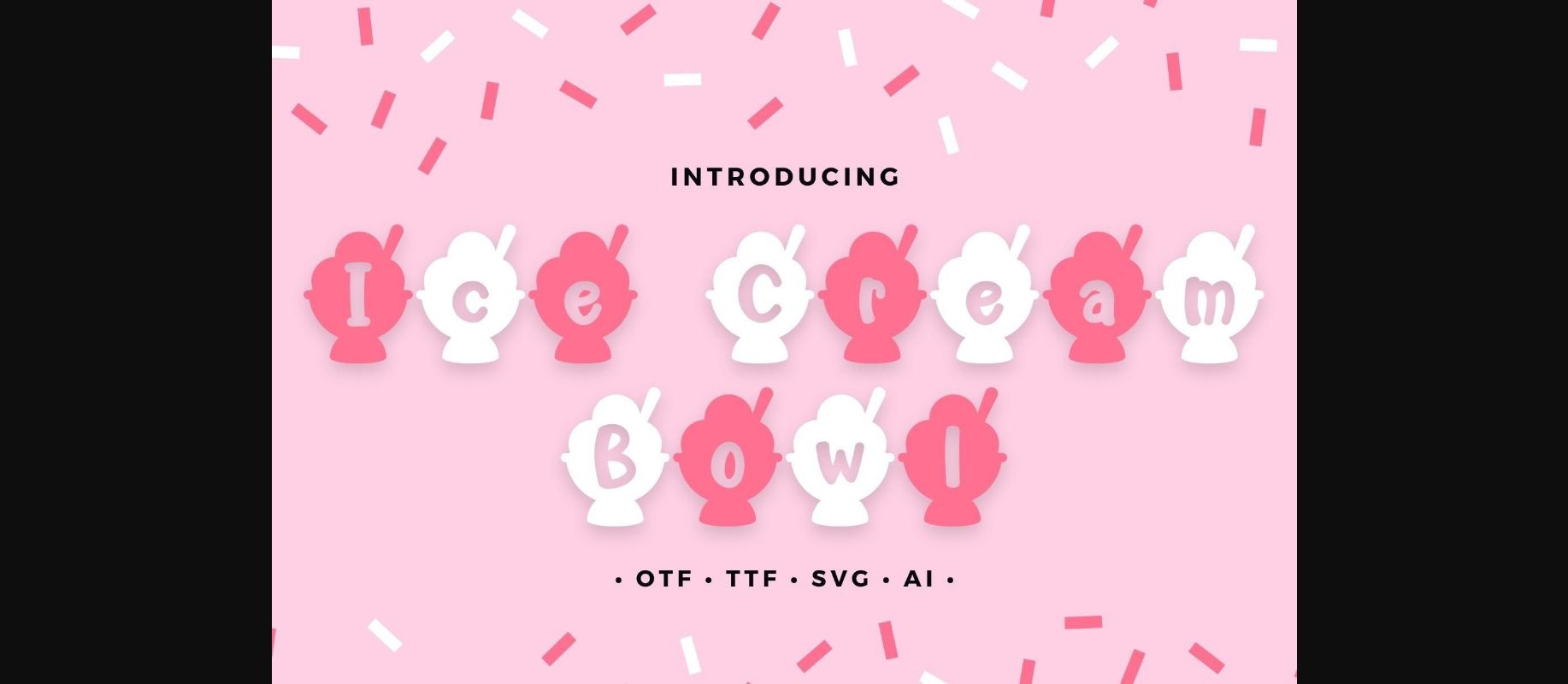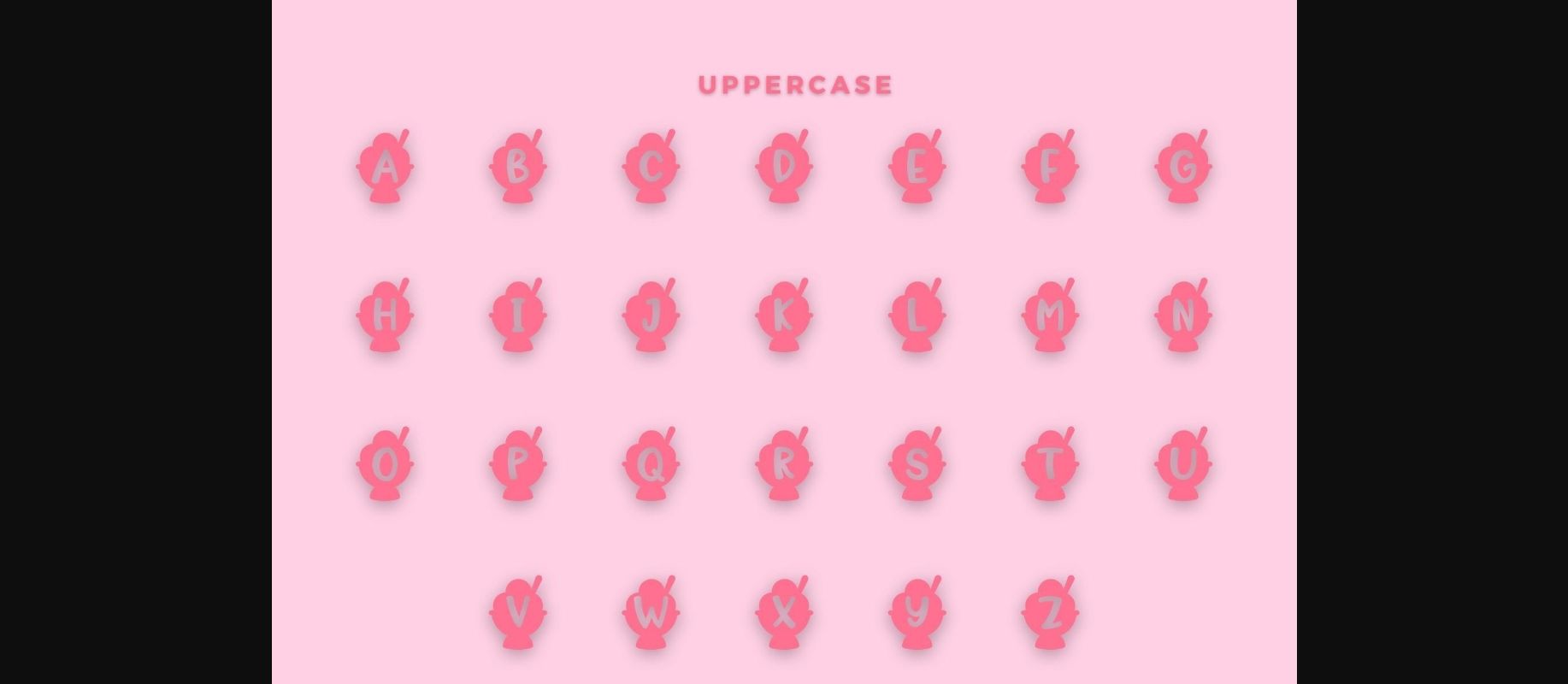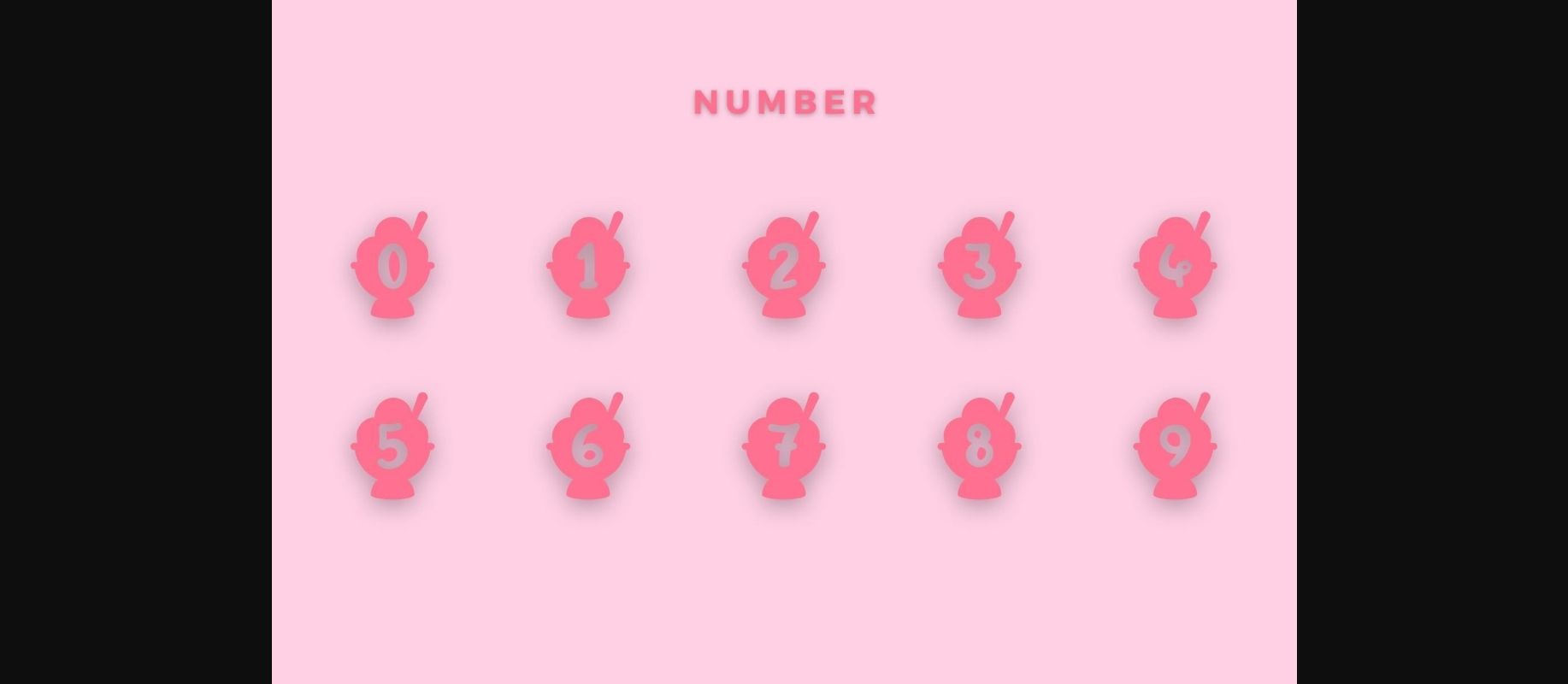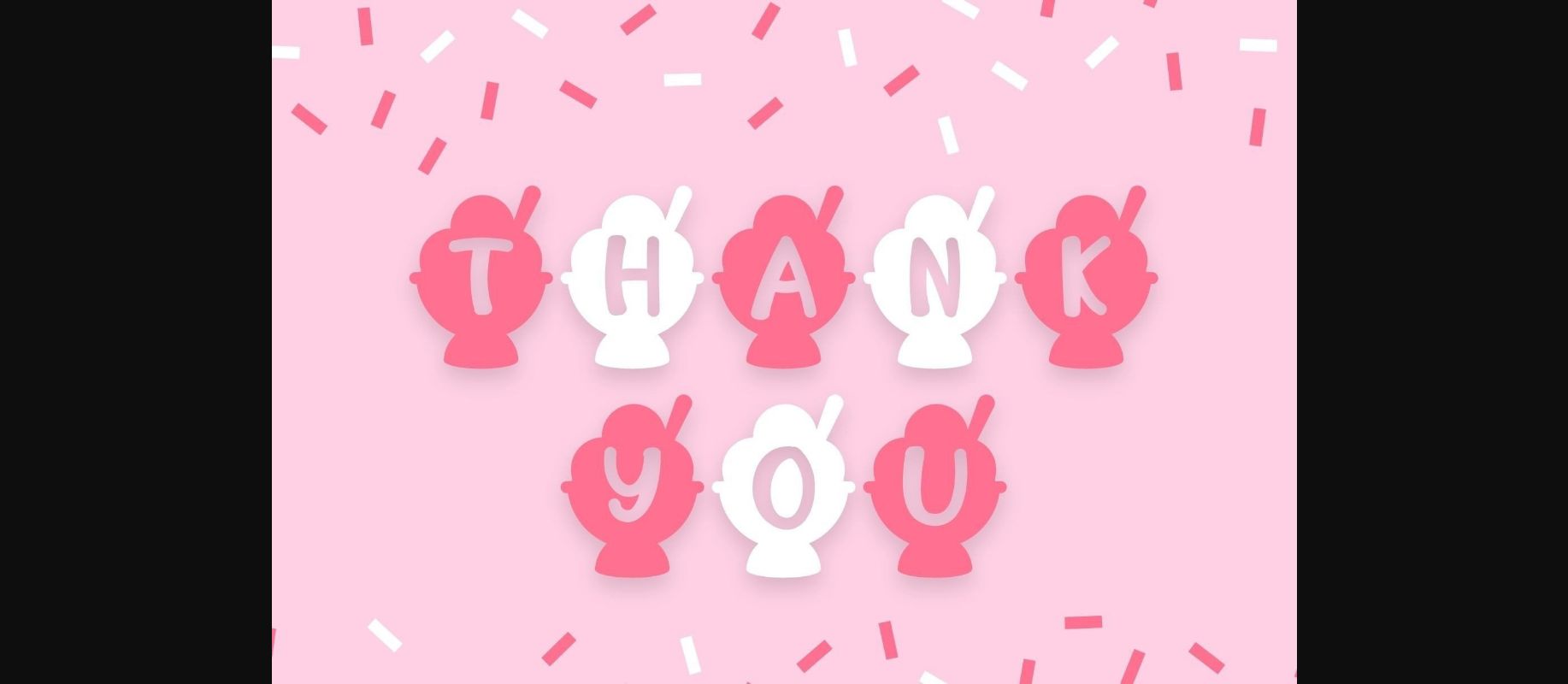
Ice Cream Bowl Font
About Ice Cream Bowl Font
Ice Cream Bowl is a cool and kid-styled decorative font. You can use it for various projects, such as blog posts, logos, branding, ads, invitations, greeting cards, planners, photo albums, decorations, and much more. Add it to any of your designs, and enjoy the results!